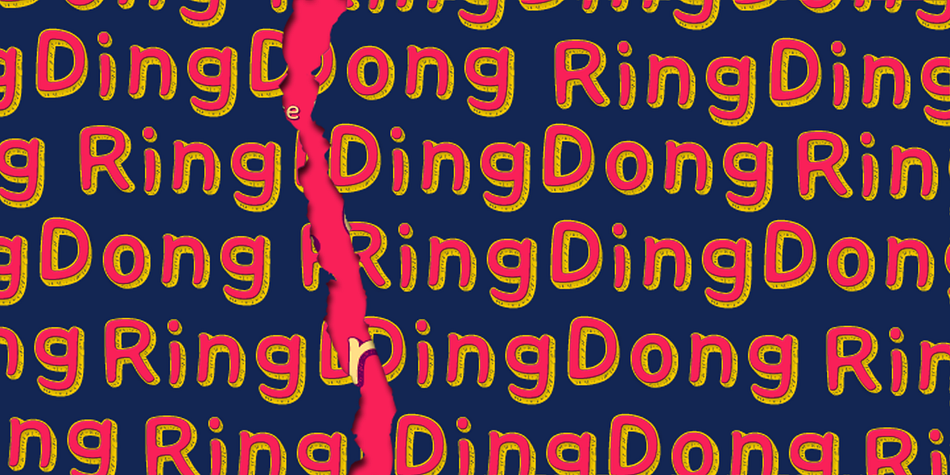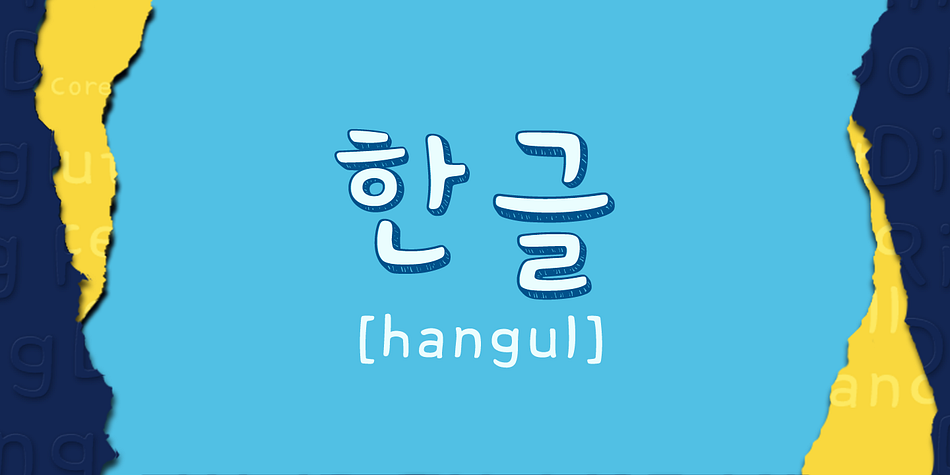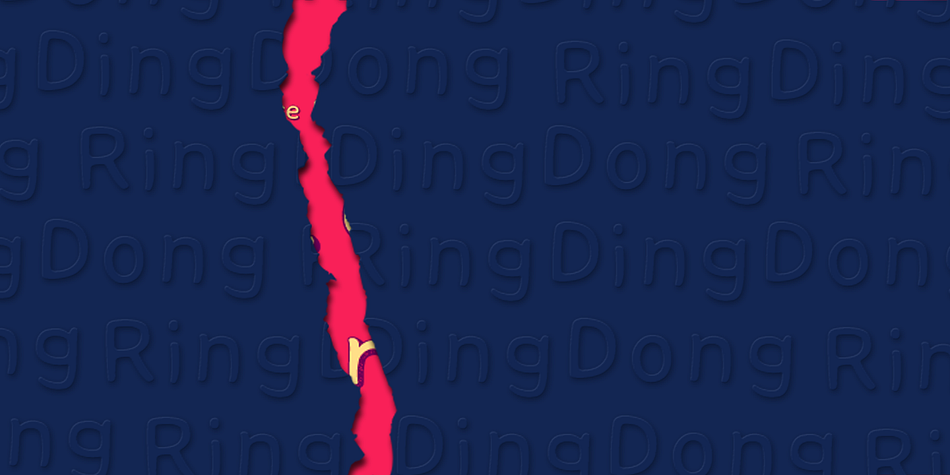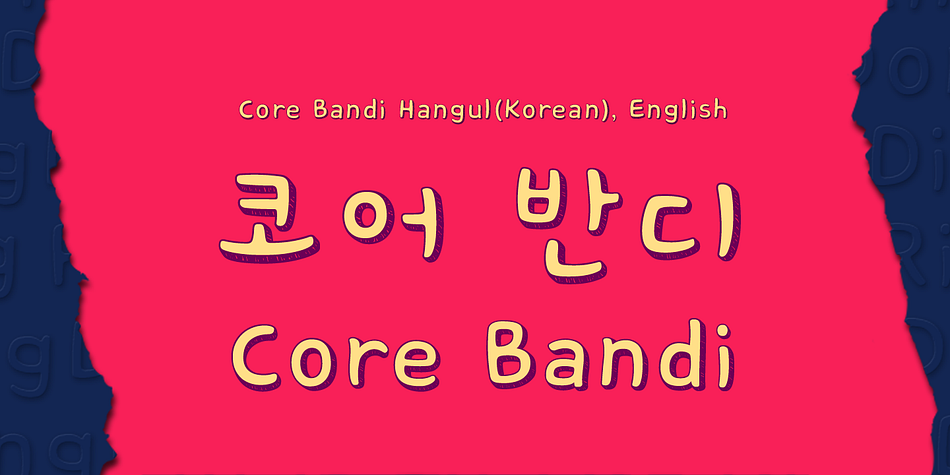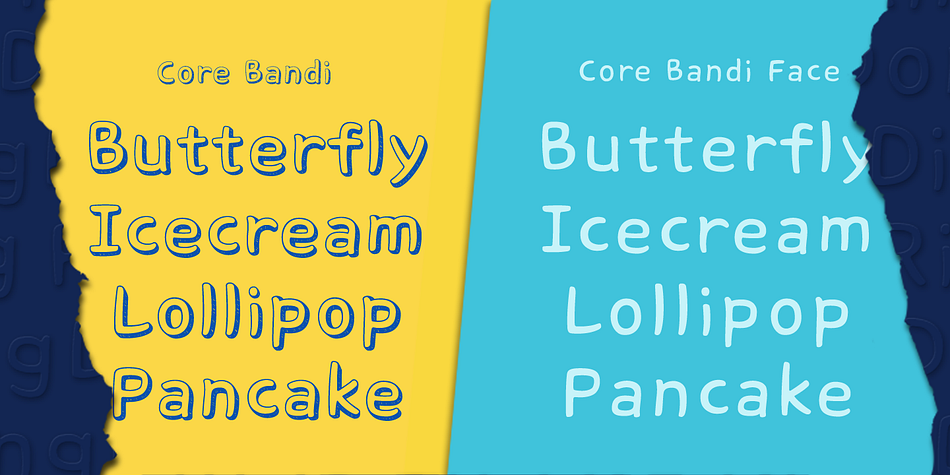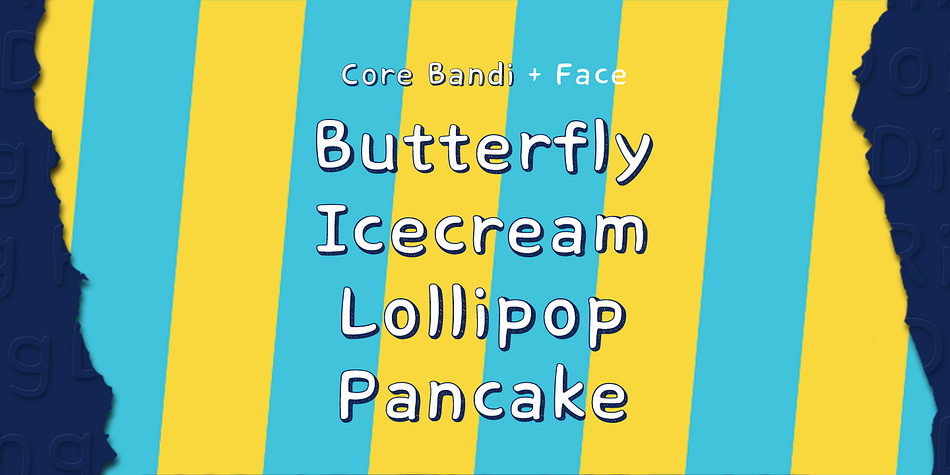
Core Bandi is a hand drawn and hand display font family. This typeface has two styles and was published by S-Core.
Core Bandi is a grunge 3D font supported by equivalent “flat” styles named Core Bandi Face. This typeface is very cute and has rhythmic flow line, but not distracted. And you can easily make various color combination with CoreBandi & CoreBandi Face. It’s really hard to find doodled 3D Korean(Hangul) font even in Korea because Hangul has as many as 11,172 characters.